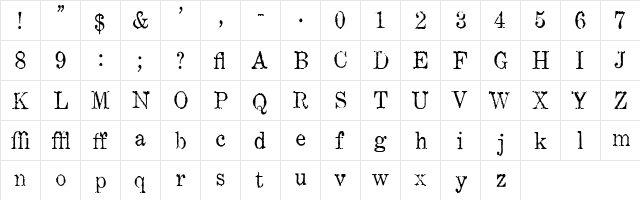
Matchwood WF Regular
| Designer | Walden Font Co. |
Design Context for Matchwood WF Typeface
Matchwood WF echoes the hand-painted signage and woodblock typography of the American frontier, with a warm, rugged personality.
A natural fit for craft spirits, ranch branding, rodeo events, and Americana-inspired design work.
Font Pairing: Combine Matchwood WF with a simple slab or neutral sans — period-accurate companions reinforce the vintage feel without competing for attention.
Pro Tip: Use Matchwood WF for short, impactful bursts of text — it shines in poster headlines and product names rather than extended copy.